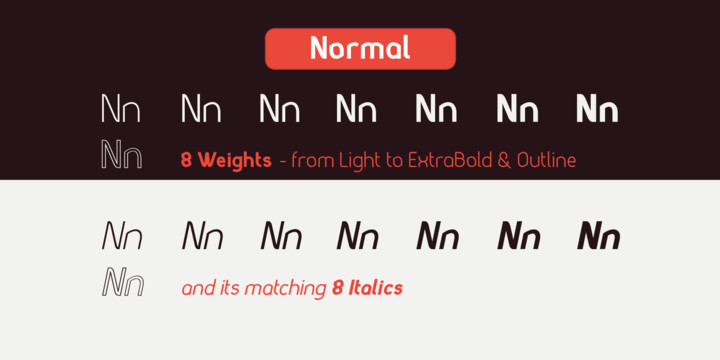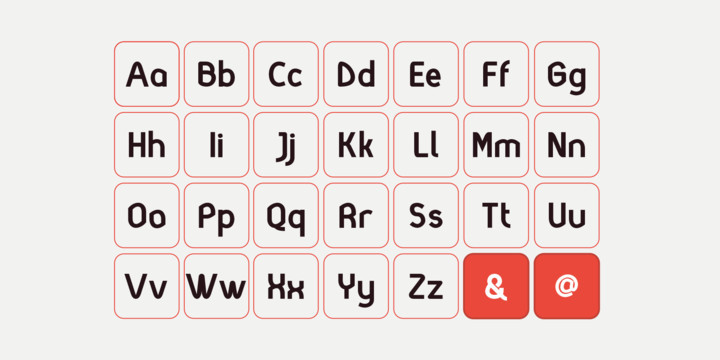
Matondo Pro Font
The Matondo Pro Family is a marvelous, elegantly designed font family.
This sans serif doubles as a display font, because of it’s unique shapes. The Matondo Pro font family is guaranteed to make your design stand out from the crowd, and leave a lasting impression.